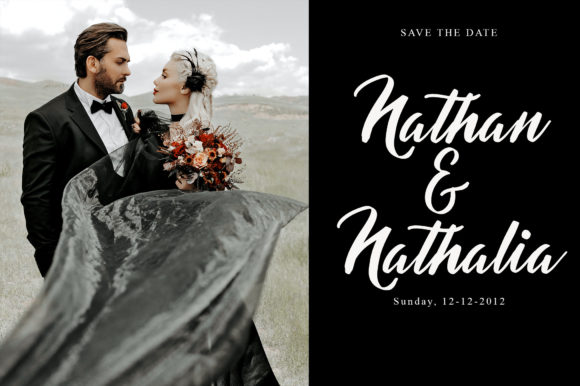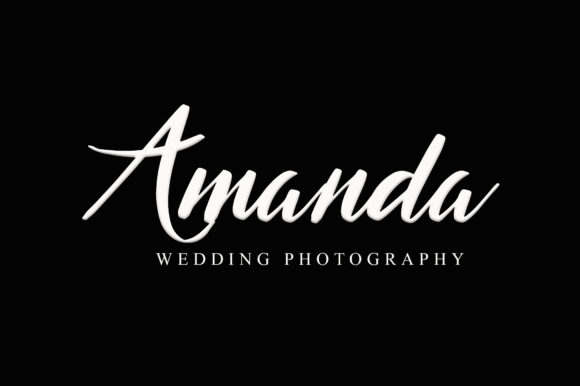
Butterline Font
db-ku.com - Script & Handwritten -- Butterline is a chic and romantic script font that features flowing characters and additional heart swashes. This font is PUA encoded which means you can access all of the glyphs and swashes with ease